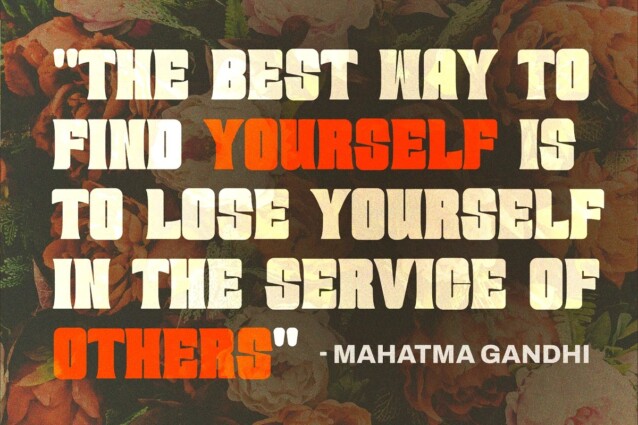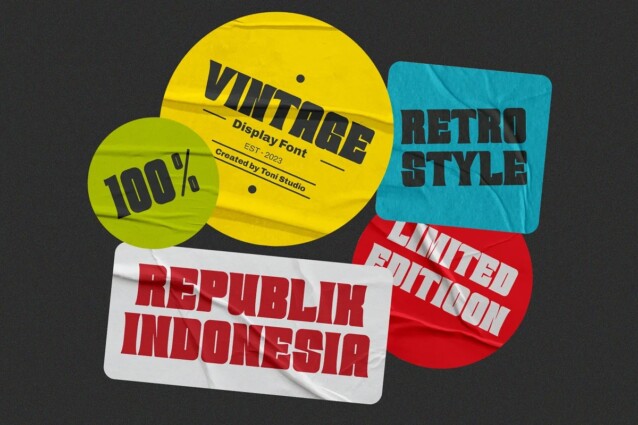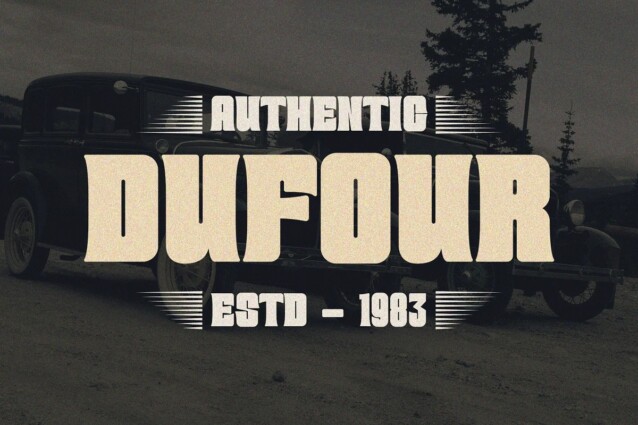
Crimbo Vintage Font
Crimbo Vintage Font is a retro funk fonts that feels casual and clean an incredible modern retro aesthetic. It’s designed and shared by ToniStudio. This is a retro, 80s-inspired font with a bold typography design, up your design game with new shapes to add to your collection! This composition is perfect for branding designs, product packaging, titles, social media, quotes, posters, book covers and more.